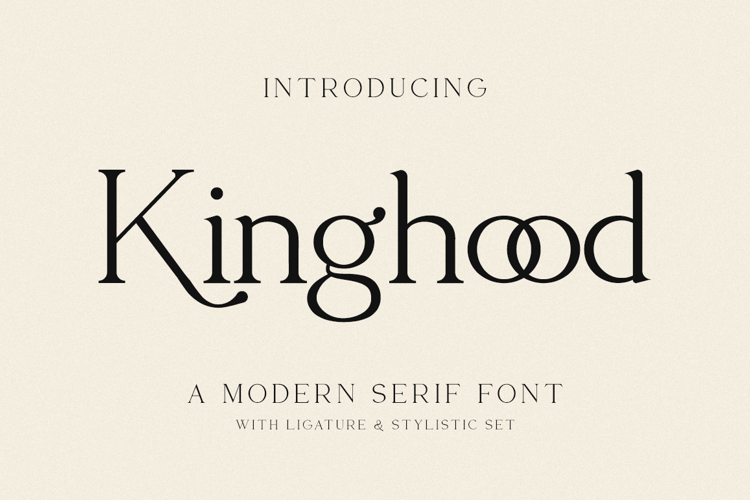
Kinghood Font
Kinghood is a delicate and elegant serif font. It is PUA encoded which means you can access all of the amazing glyphs and ligatures with ease! Add it confidently to your favorite creations and let yourself be amazed by the outcome generated.